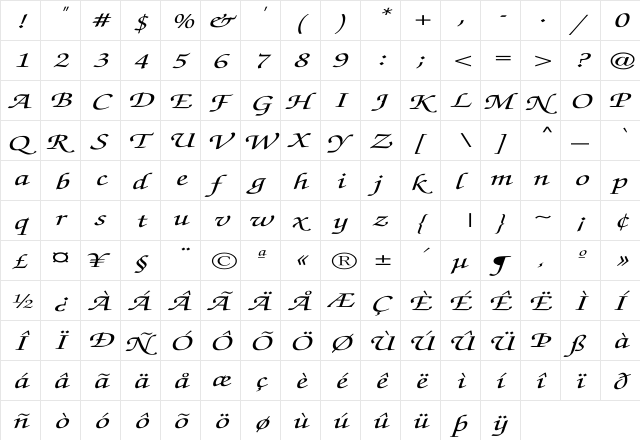
ZapfChancery-MediumItalic Ex Regular
Design Context for ZapfChancery-MediumItalic Ex Typeface
ZapfChancery-MediumItalic Ex takes a measured approach to typography — its balanced proportions and neutral character make it a reliable workhorse for both digital and print work. The slanted form adds forward momentum and visual energy.
Pro Tip: Try ZapfChancery-MediumItalic Ex for annotation and caption copy alongside an upright companion — the contrast in angle creates a dynamic but ordered typographic system.